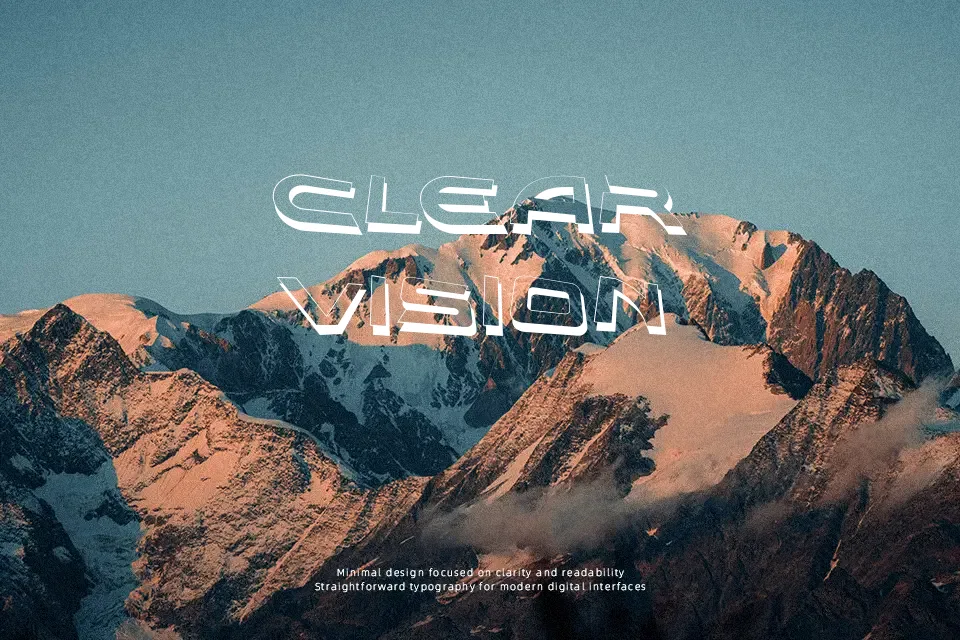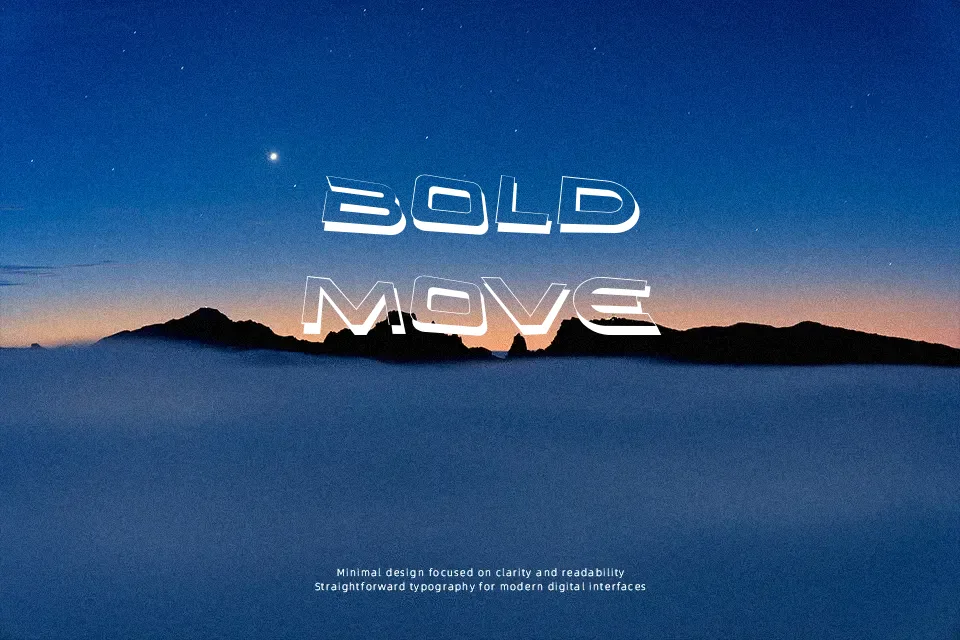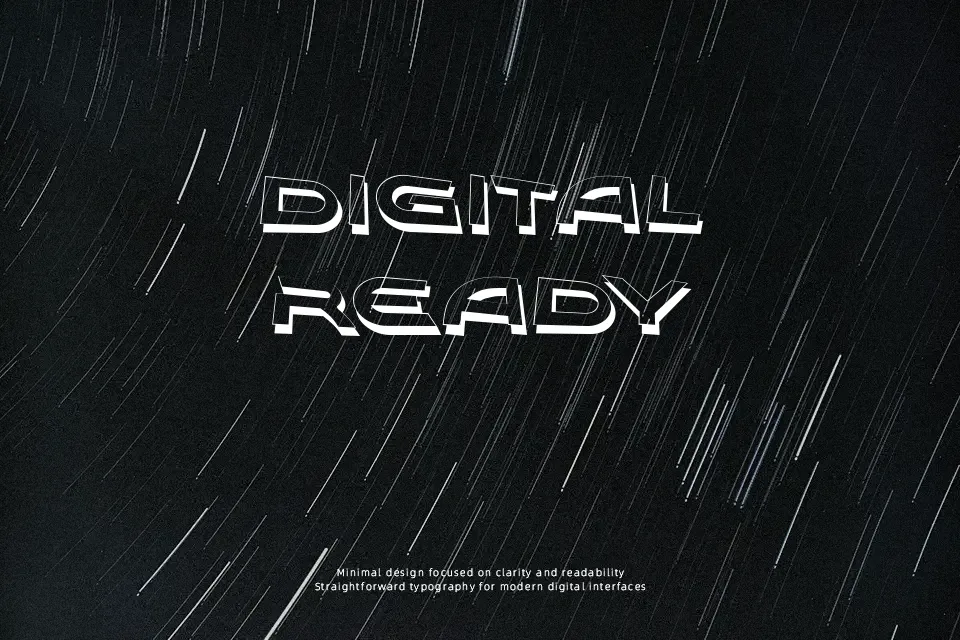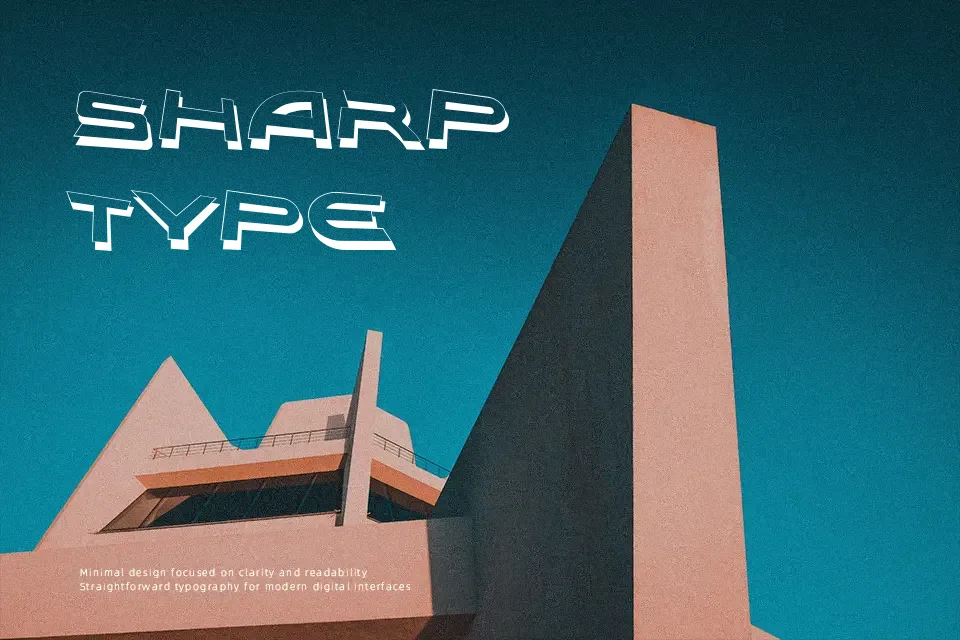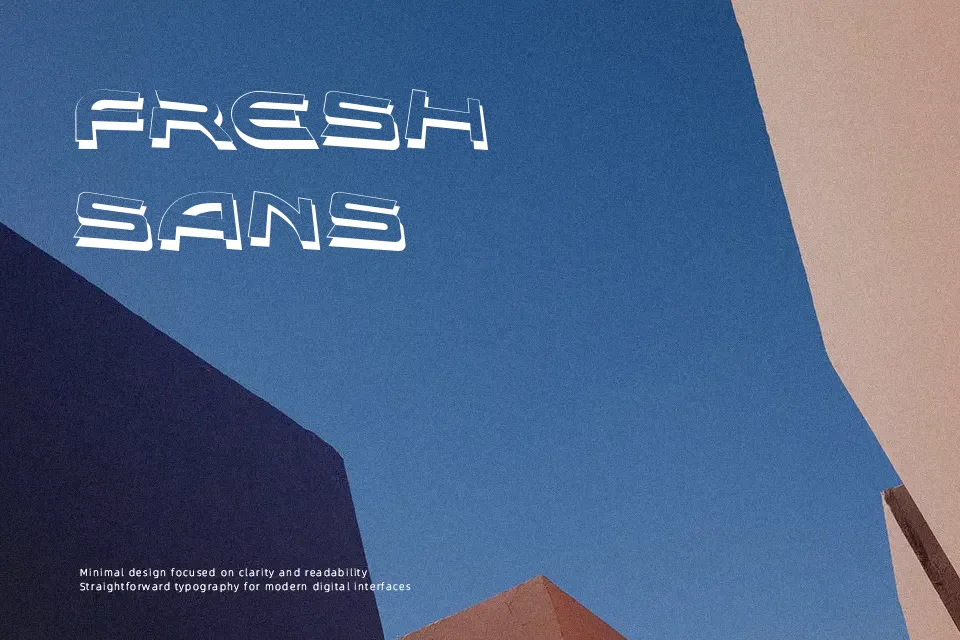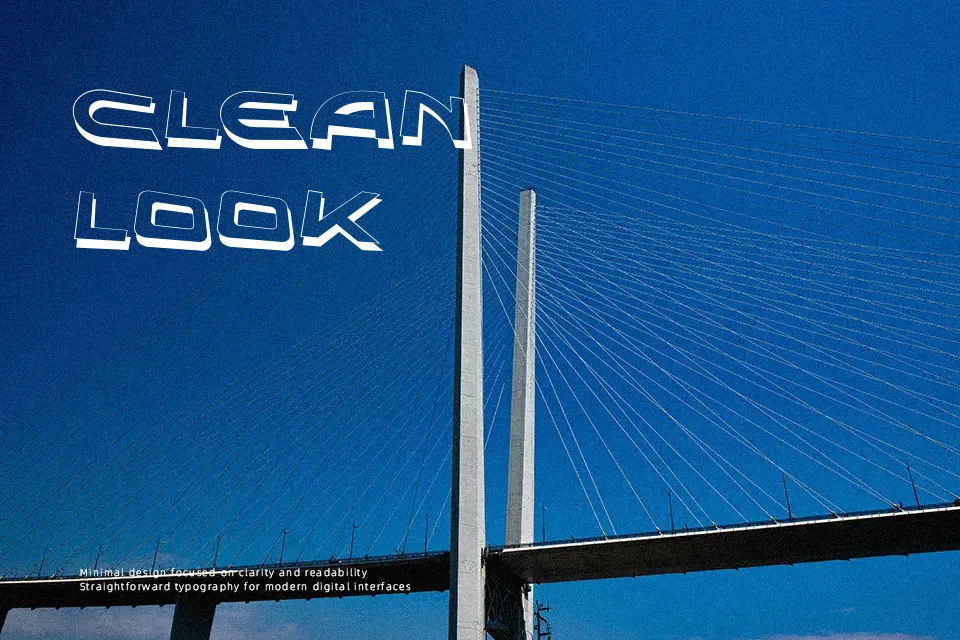
Adventurer Font
There’s a raw, kinetic quality to Adventurer that makes it stand out in a crowded display category. The letterforms carry strong stroke weight with angular, assertive structure and minimal spacing — designed to fill space with purpose rather than subtlety. It works particularly well on gaming thumbnails, outdoor event posters, or apparel graphics where visual impact matters more than refinement. That said, the decorative density makes it a poor fit for any context requiring readability at small sizes or extended reading. If you’ve ever wrestled with a bold font that feels either too polished or too rough, Adventurer lands somewhere confidently in between — expressive but not chaotic.
Best For:- Outdoor adventure brand headers
– Gaming or esports event posters
– Apparel and merchandise graphic titles
– Social media visual headlines
Not Ideal For:- Body text or extended copy
– Corporate or professional documents
– Small-size applications such as captions or footnotes
– Minimalist or clean-aesthetic branding
Perfect for branding, gaming, and headline, with a bold and decorative style.